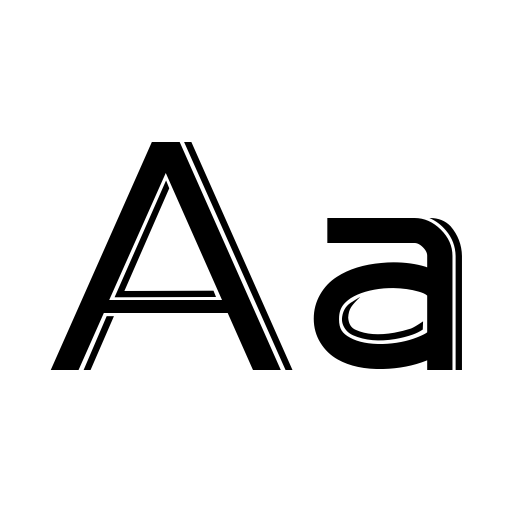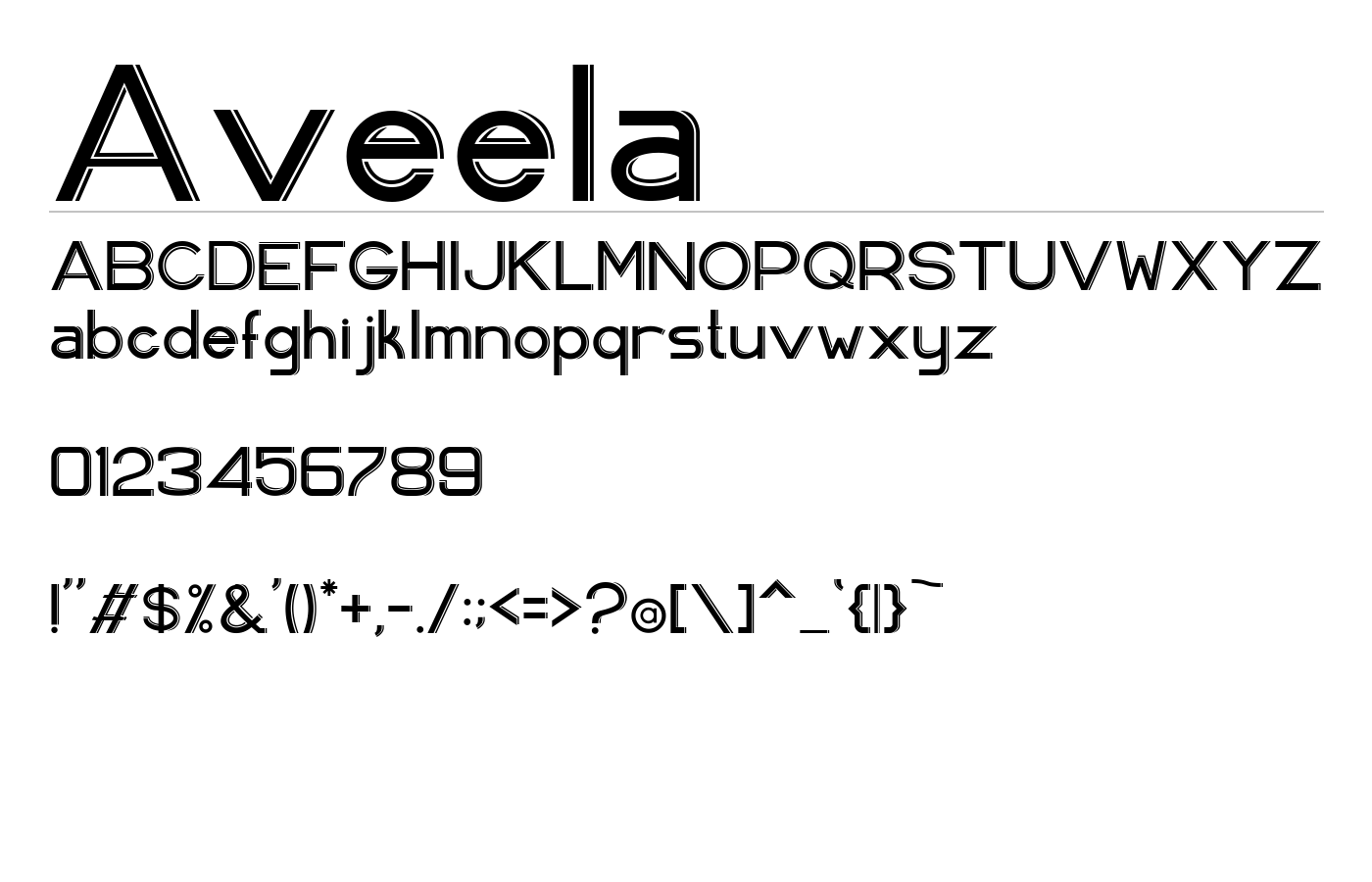
Aveela is a modern, geometric sans serif font with a distinctive, slightly condensed structure and clean, sharp lines that create a sleek and futuristic feel. Its tall x-height and unique layering effect on strokes give it a dynamic and elegant character, making it ideal for eye-catching headlines, branding, and editorial design where a contemporary and sophisticated look is desired. This font works particularly well in fashion, tech, and luxury contexts due to its refined yet innovative style.
Aveela Font